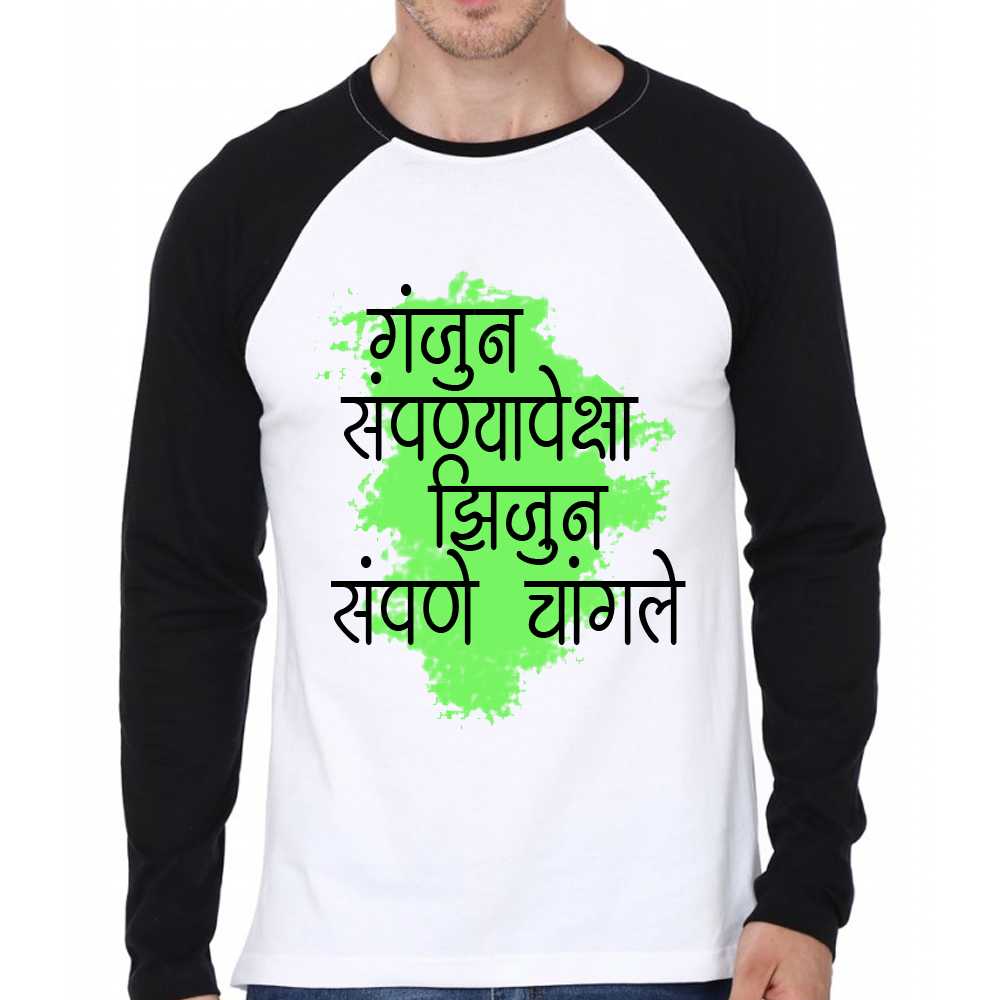
AMS Bhagyshri
AMS Bhagyshri is an exceptional publication font that brings elegance and sophistication to your Hindi and Marathi projects. With its refined design and impeccable readability, this font ensures a seamless reading experience for your audience.
About AMS Bhagyshri Font
AMS Bhagyshri is an exceptional publication font that brings elegance and sophistication to your Hindi and Marathi projects. With its refined design and impeccable readability, this font ensures a seamless reading experience for your audience. This publication font combines elegance with functionality, making it perfect for various design applications.
AMS Bhagyshri is a professionally crafted publication typeface that brings clarity and style to your projects. Designed with attention to detail, it supports hindi and marathi characters flawlessly.
Whether you're working on wedding-materials, invitations, logos, or other creative projects, AMS Bhagyshri delivers consistent performance across both digital and print media. This carefully designed typeface ensures readability and visual appeal in all your design work.
About AMS Bhagyshri Typography Style
AMS Bhagyshri is a professionally crafted publication font that exemplifies modern Hindi typography design. This free font is perfect for designers seeking professional branding and logo design projects.
Available in 1 weight and supporting hindi, marathi scripts, AMS Bhagyshri offers exceptional versatility for both digital and print media. Whether you're working on wedding-materials, invitations, logos, this carefully designed typeface ensures consistent quality and professional results across all your typography projects.